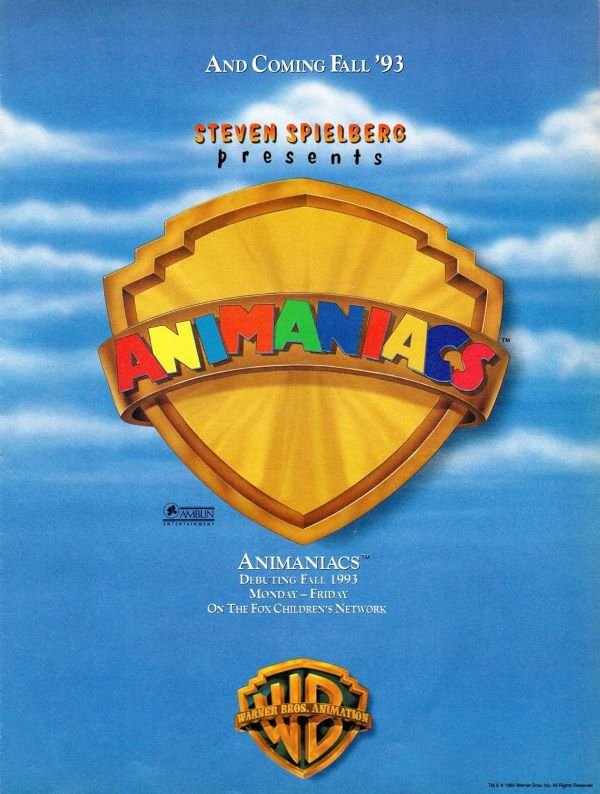
Animaniacs Font is Wicked Mouse — a cartoon-style display typeface with bouncy letterforms, exaggerated curves, and a playful hand-drawn look that perfectly captures the fun, chaotic energy of the beloved animated comedy series created by Tom Ruegger and produced by Steven Spielberg, which first aired in 1993 and became famous for its slapstick humor and pop-culture wit. Free for personal use.